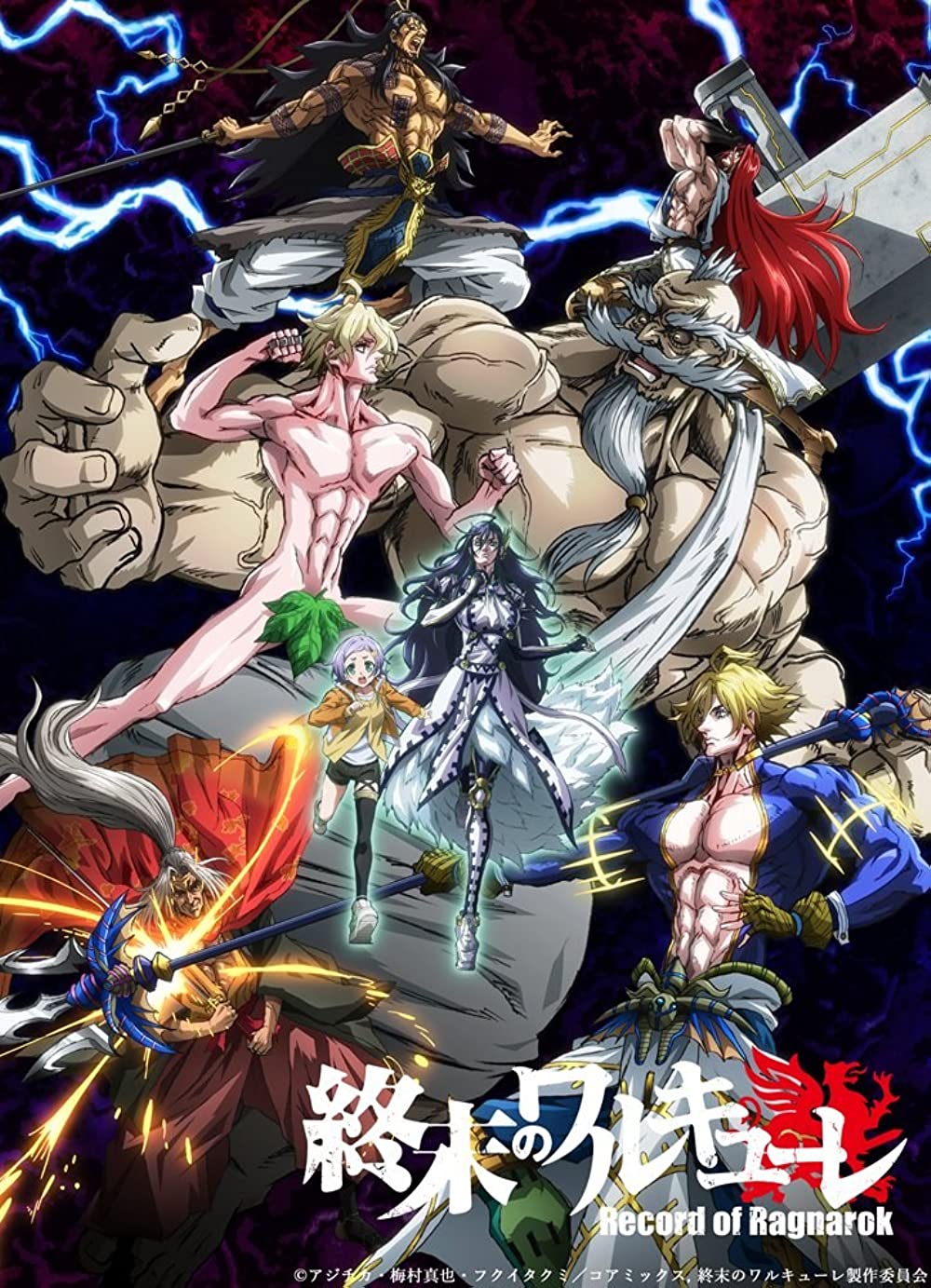
Record of Ragnarok Font
BookRecord of Ragnarok (終末のワルキューレ) is a Japanese manga series written by Shinya Umemura and Takumi Fukui and illustrated by Ajichika. The manga was licensed in North America by Viz Media in June 2021, and it was adapted as an original net animation by Graphinica and premiered on Netflix in June 2021.
The Japanese title seems to use Ryumin Ultra KL from Morisawa. The English title is Impact or Ignite with a grunge texture. The Viz Media title resembles a free font called Norse created by Joël Carrouché.